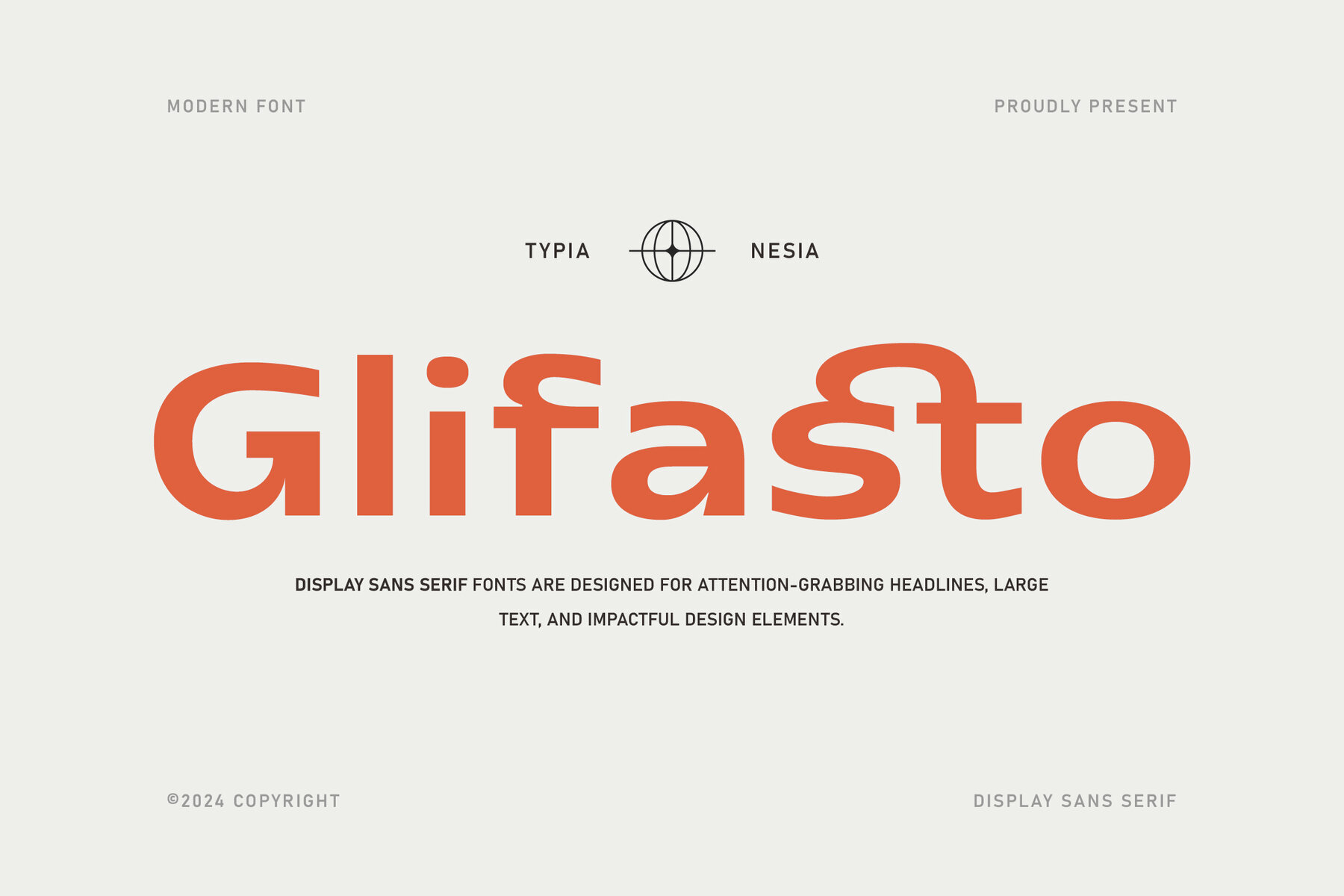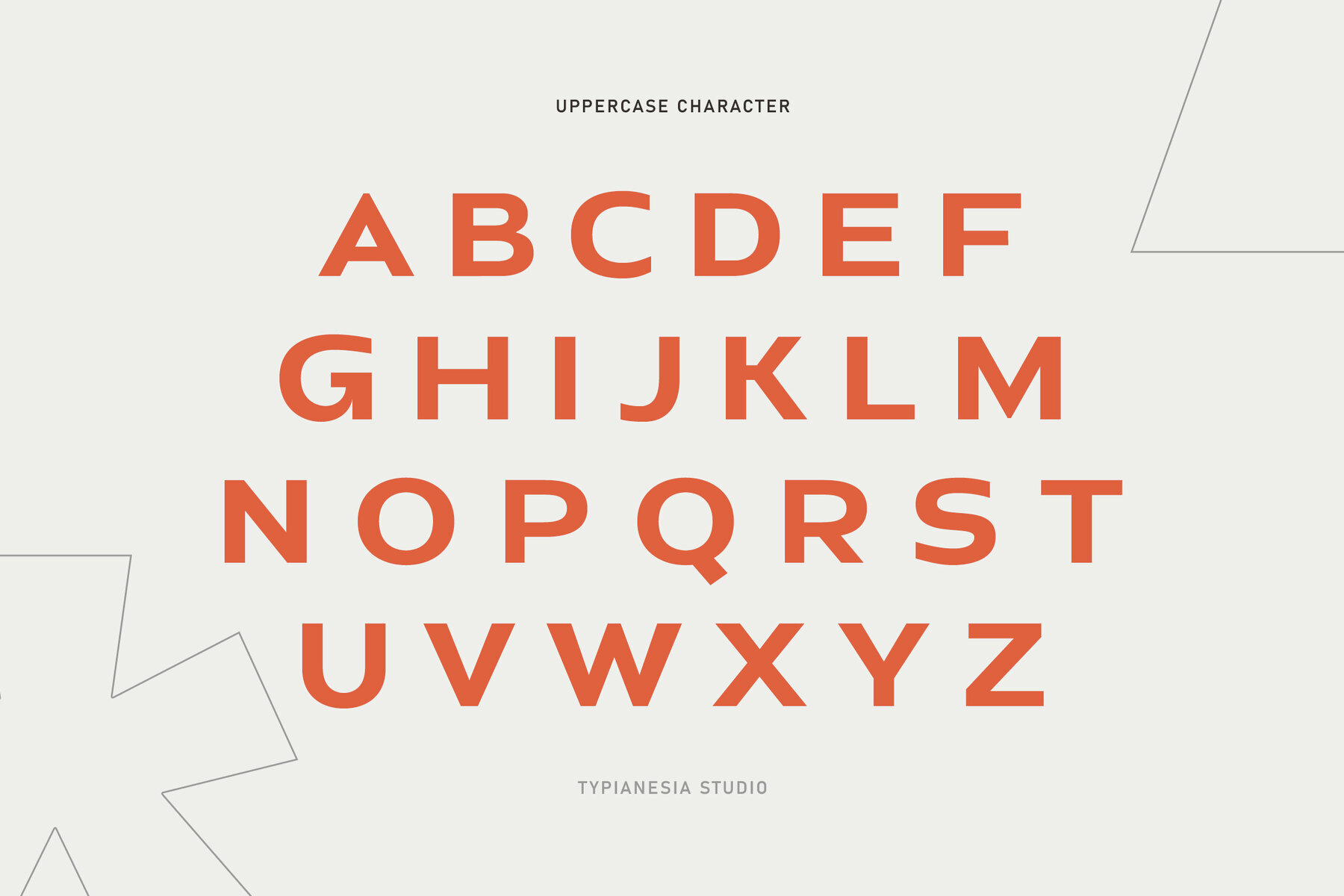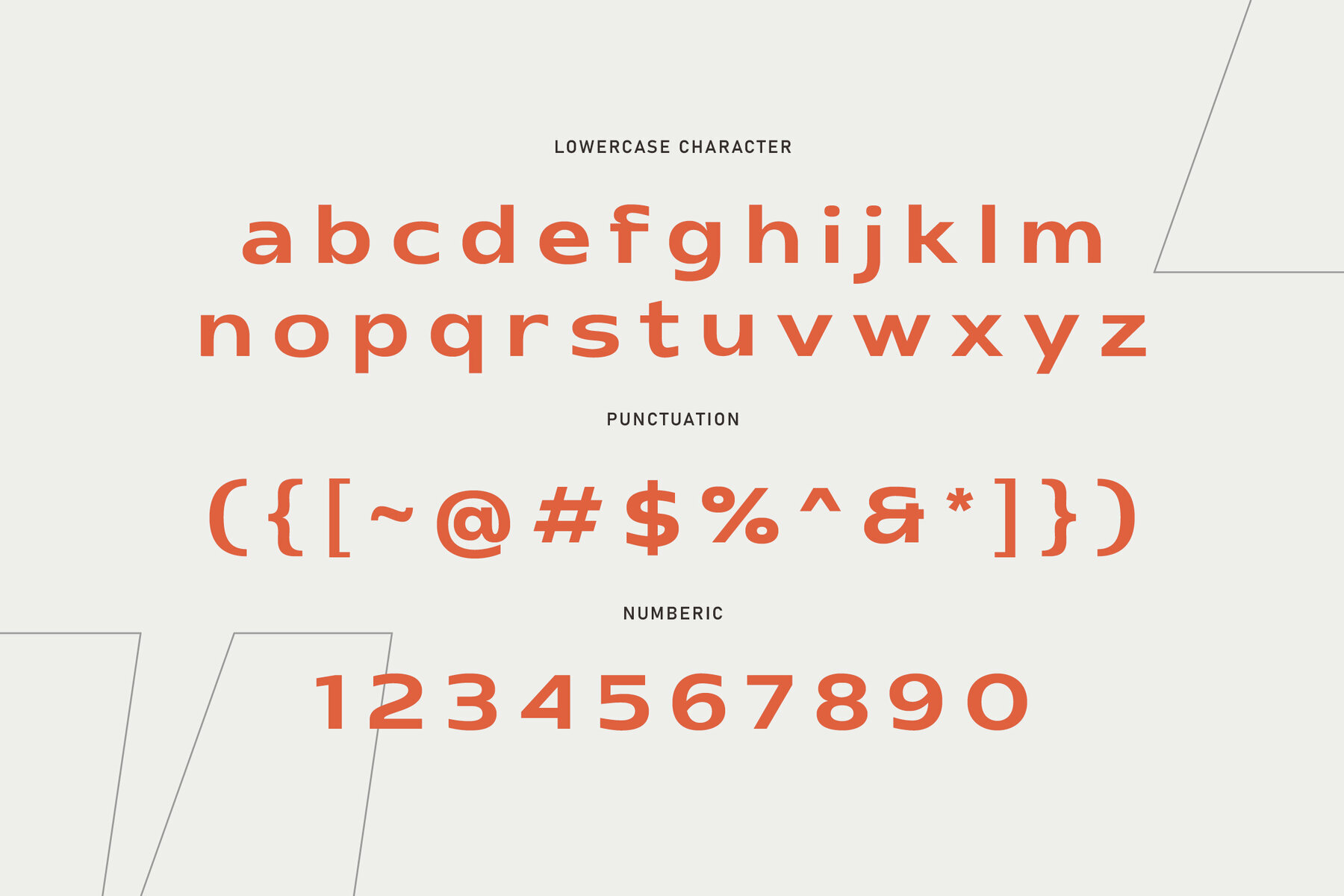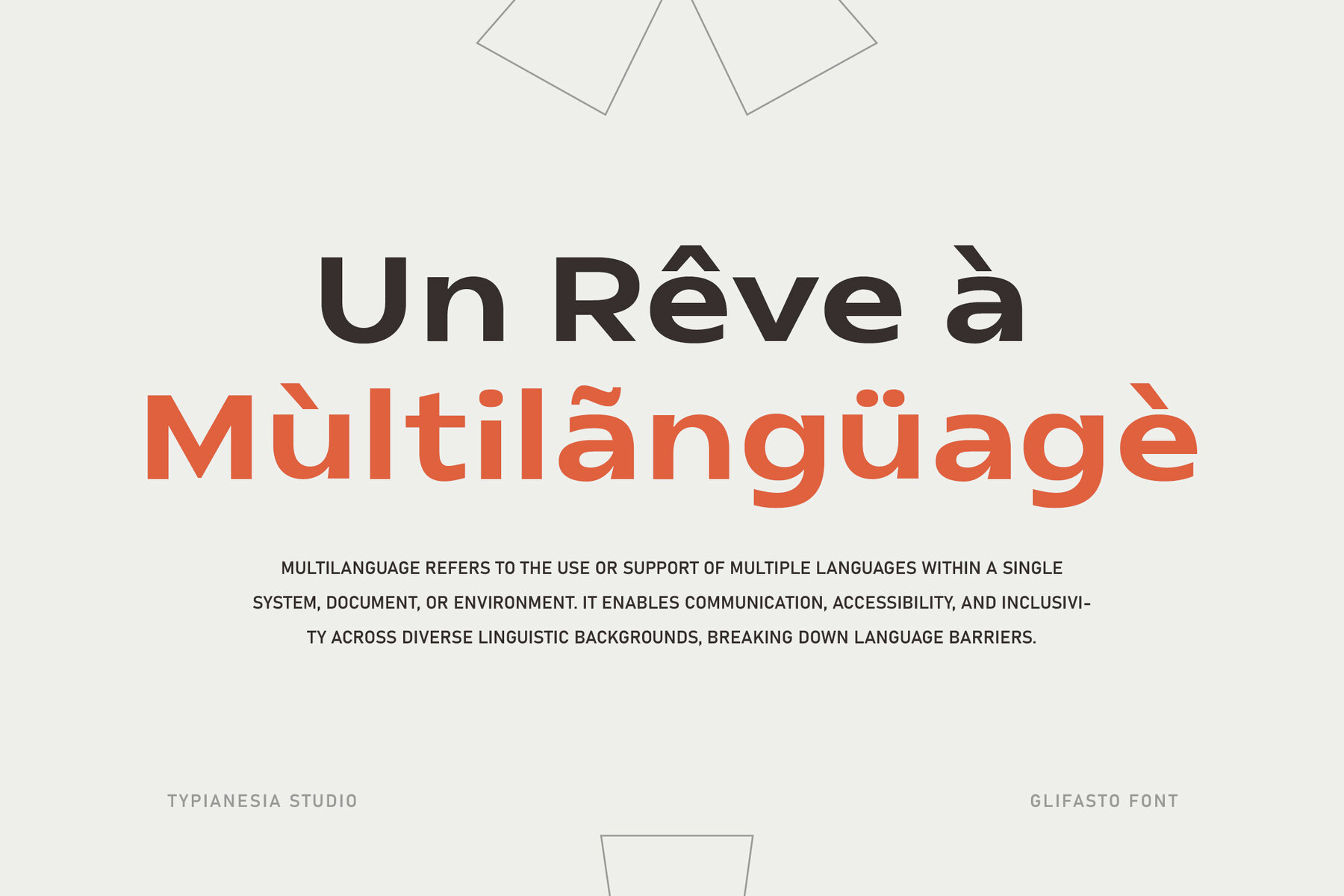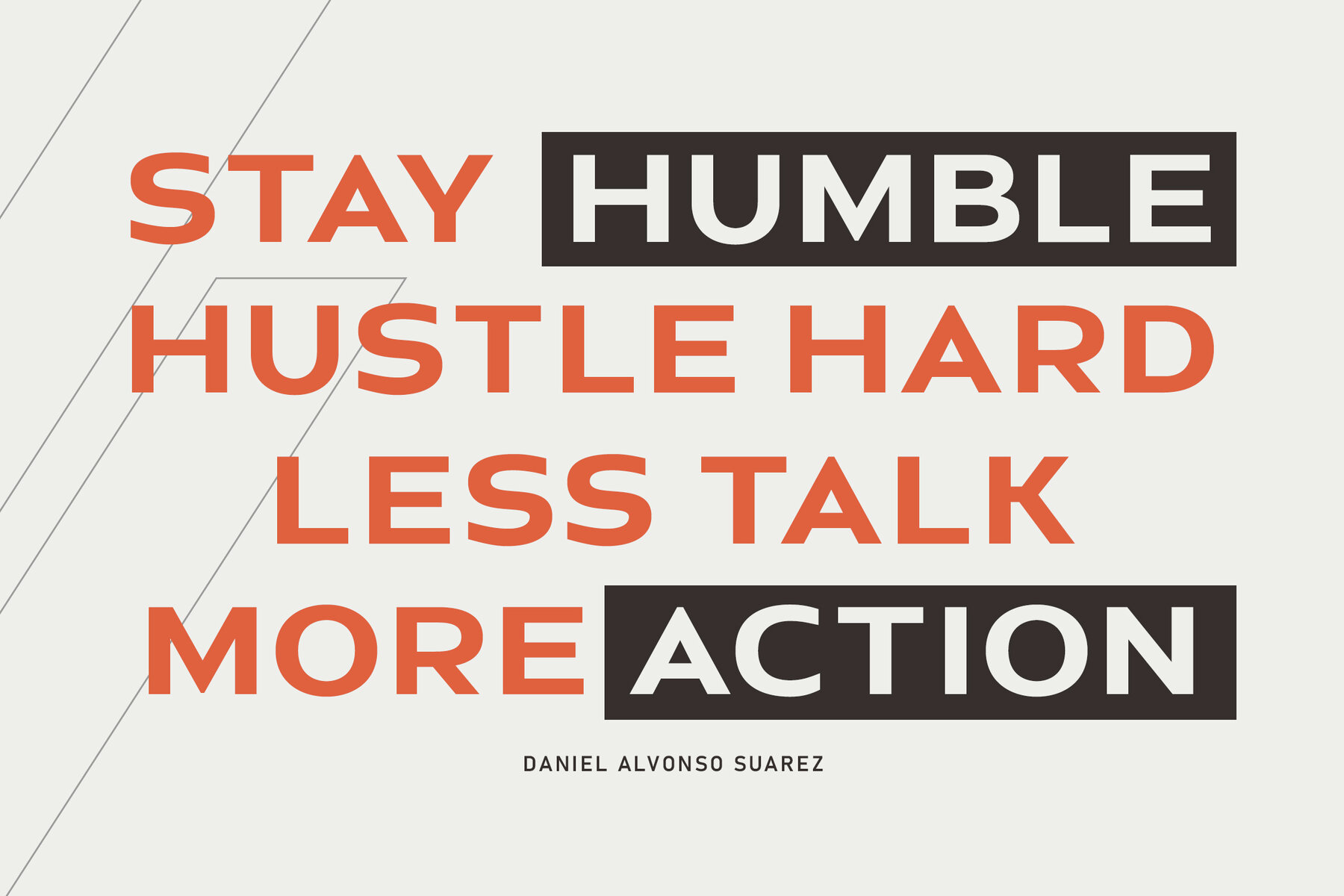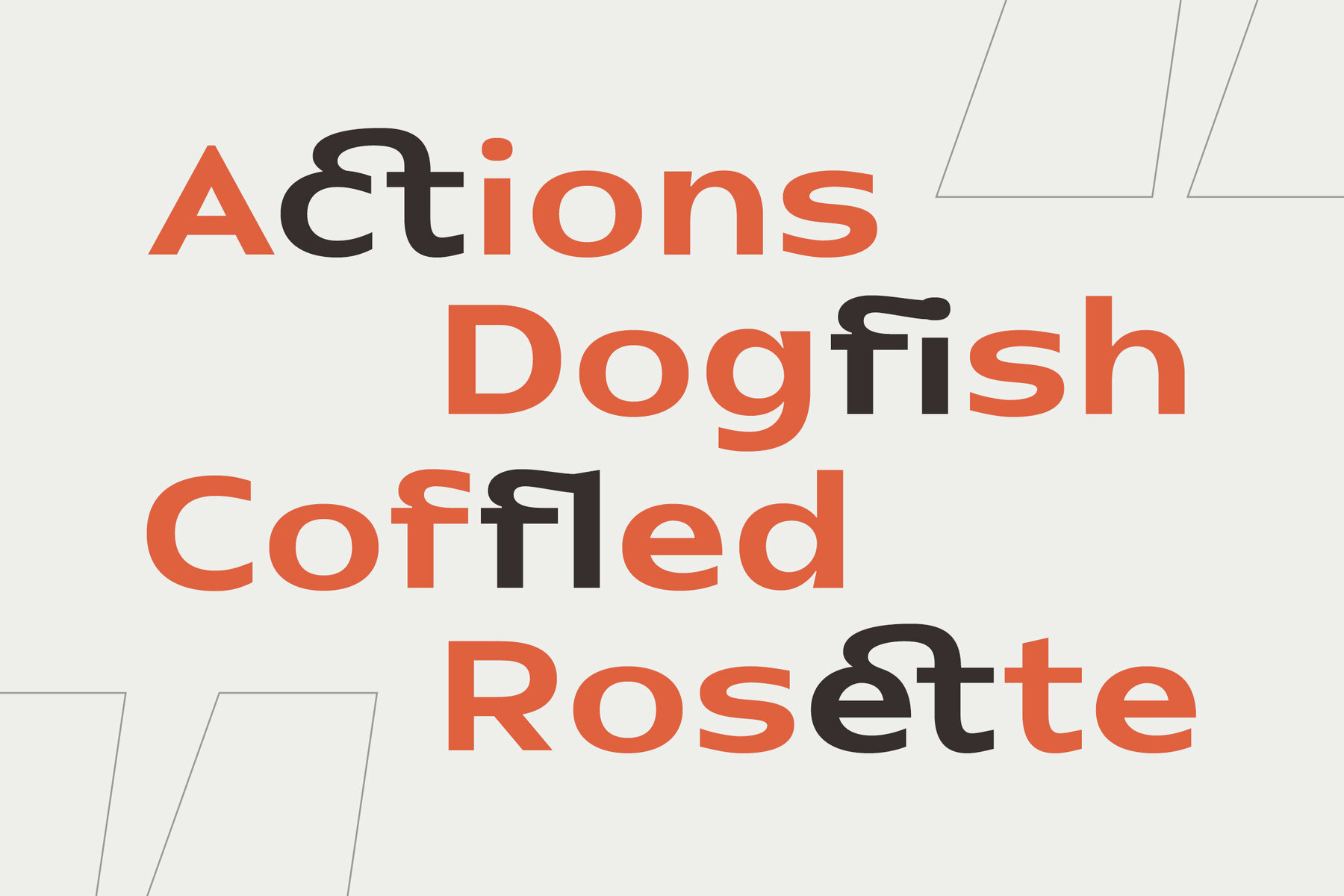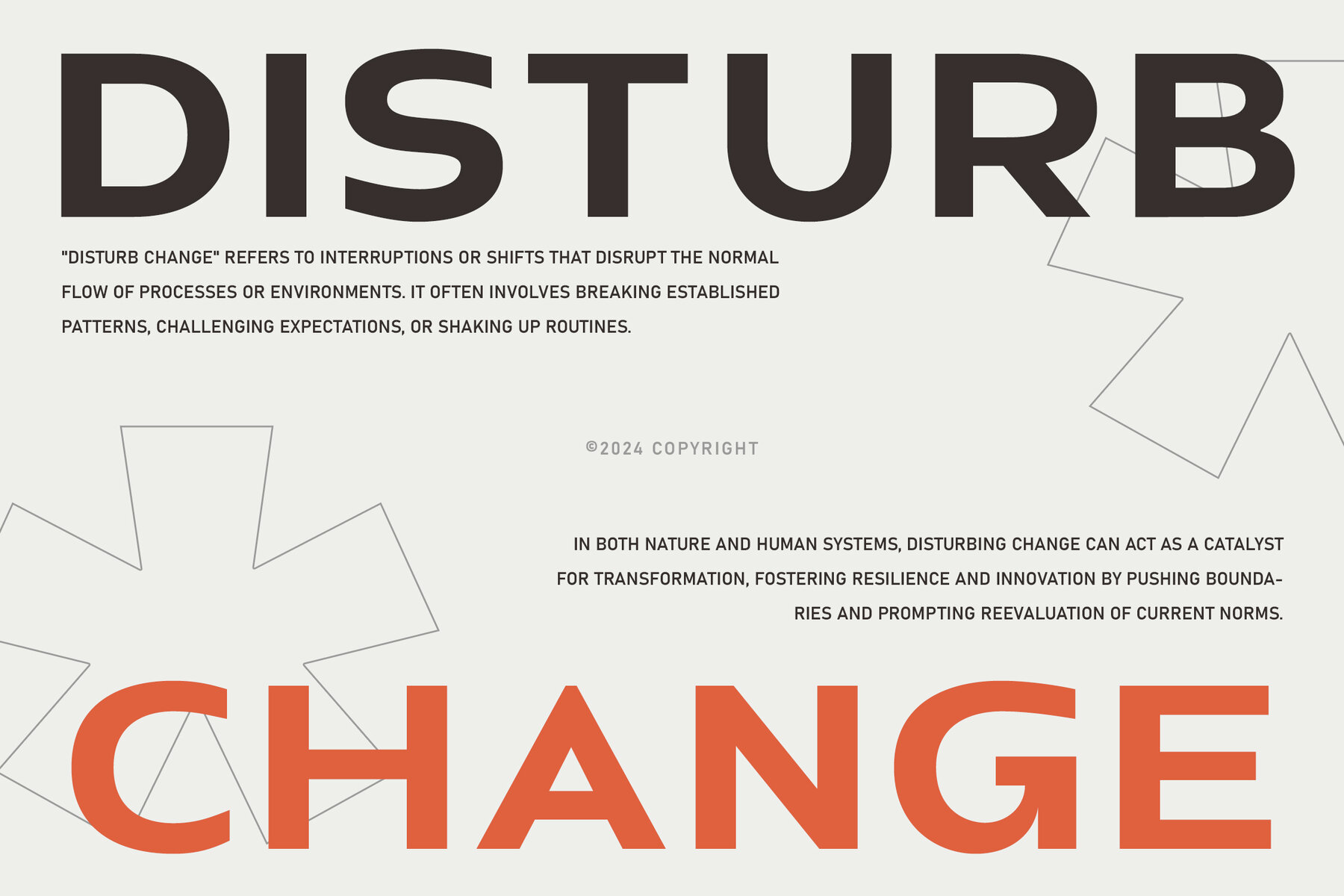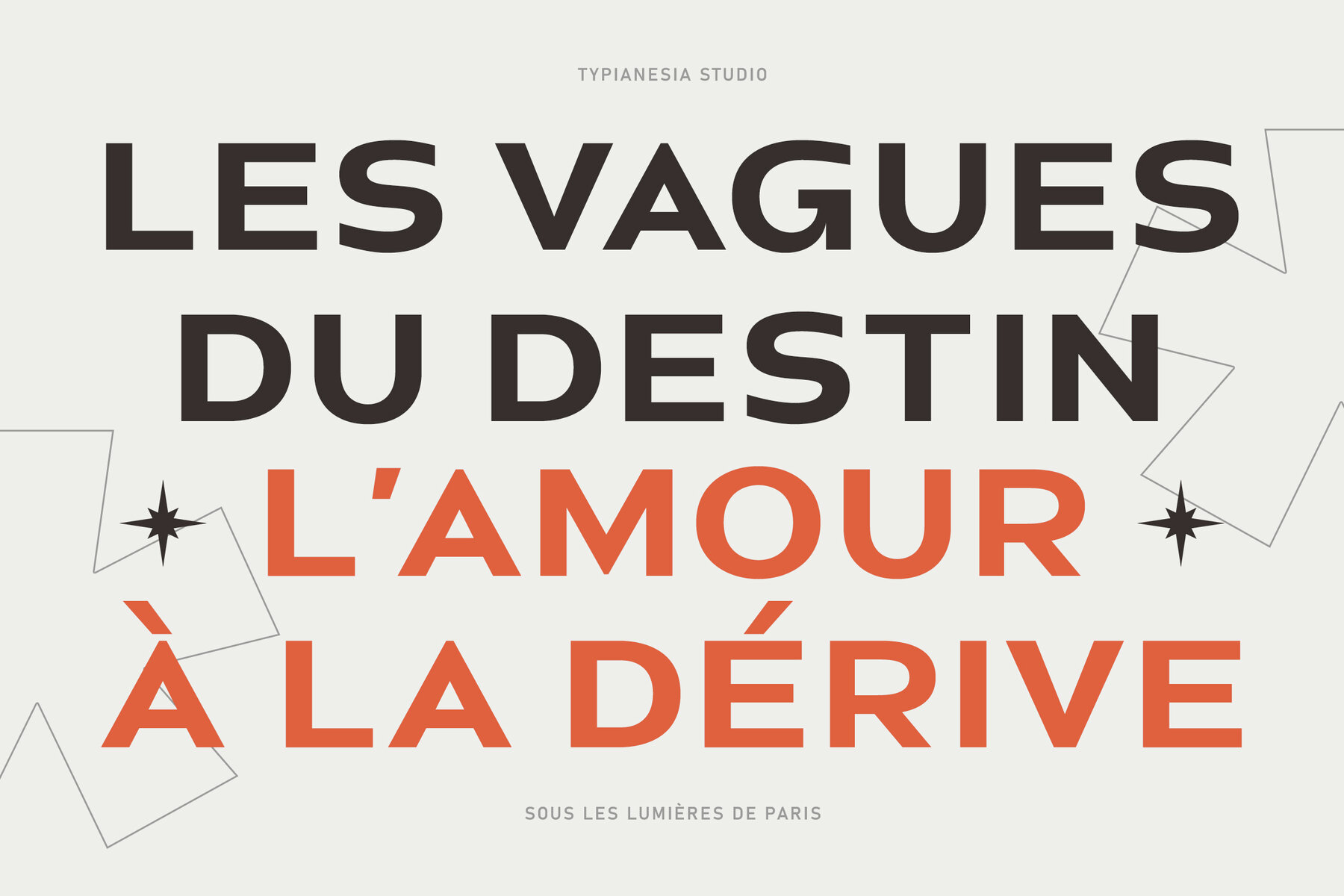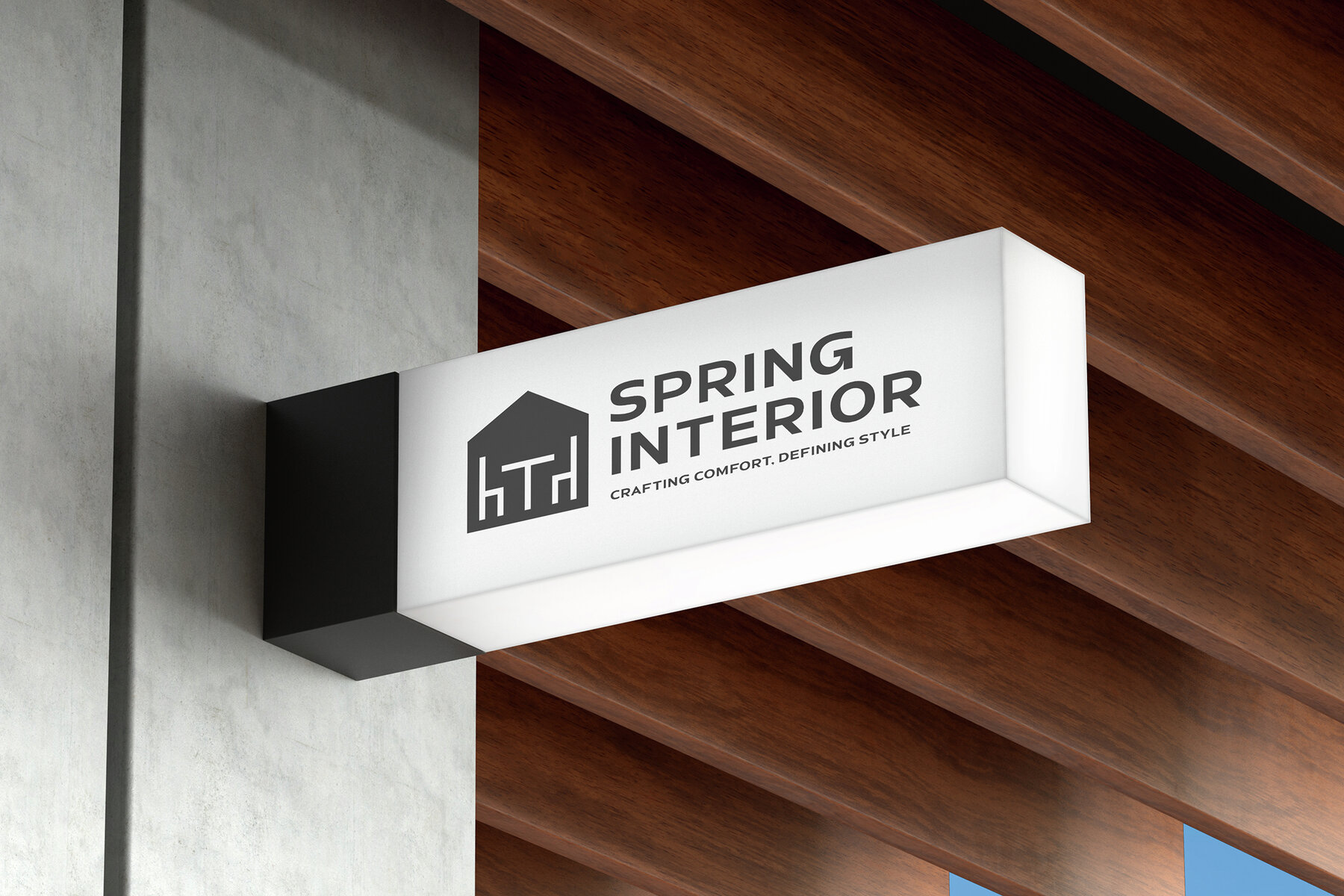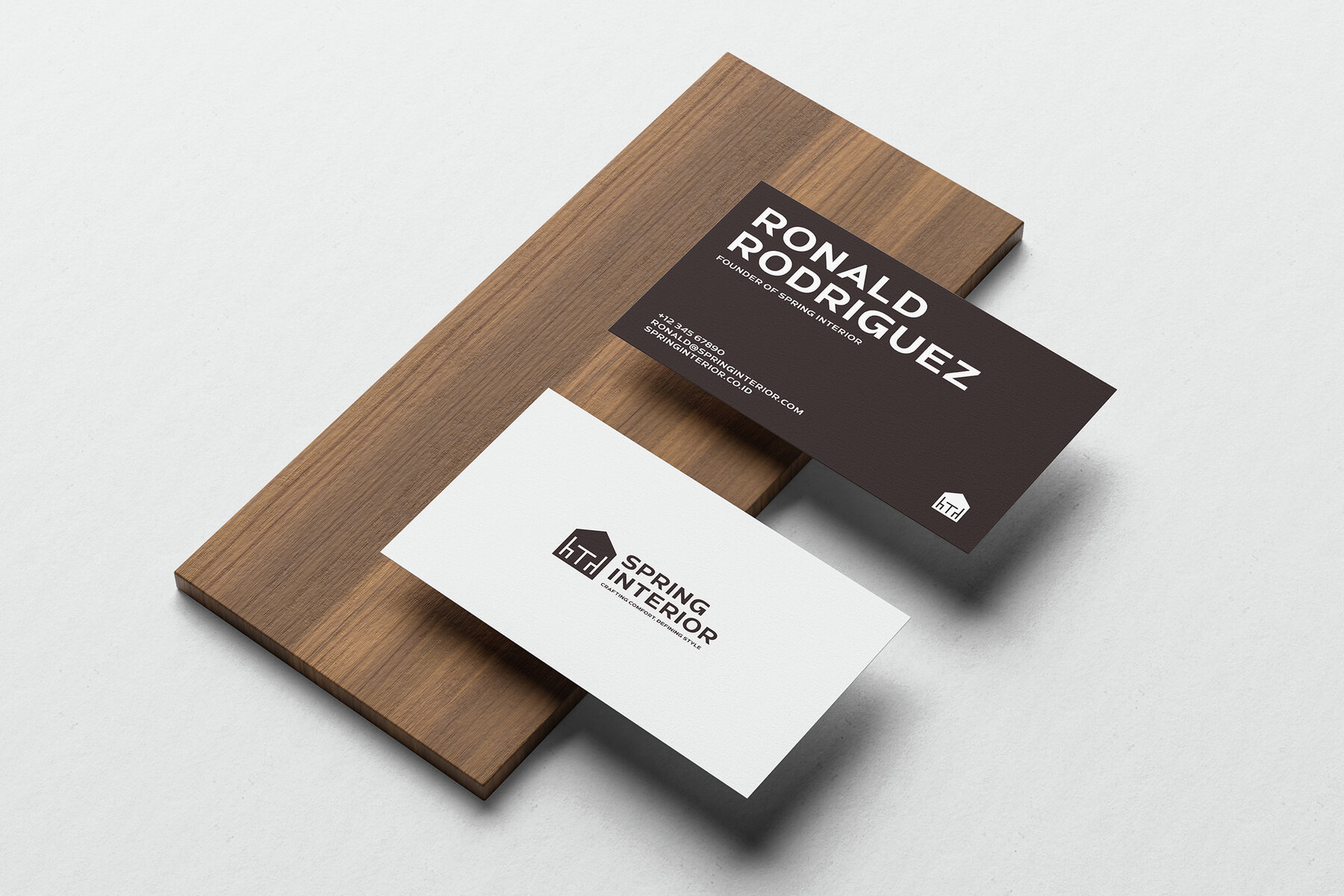
Glifasto Font
Glifasto Regular
Glifasto is a modern sans-serif display font designed to make a bold and expansive statement. Its clean lines and robust structure offer a sophisticated, contemporary look suitable for various projects. This versatile typeface is perfect for branding, logos, headlines, posters, product packaging, website headers, social media graphics, and advertising projects, where a strong personality and modern edge are essential.
Featuring a complete character set of uppercase, lowercase, punctuation, numerals, and alternate styles, Glifasto provides ample creative flexibility. With built-in ligatures and multilingual support, it accommodates global projects that require both creativity and functionality. Expertly crafted for professional designers, this font delivers a refined, modern aesthetic that resonates with audiences worldwide, transforming your design into a font that commands attention.